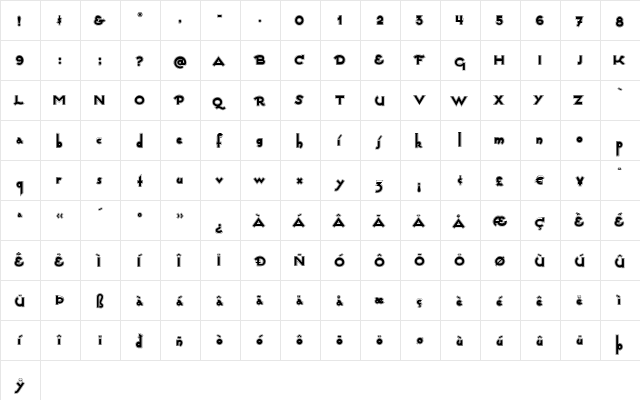
CaptainSwabby Regular Font Preview
CaptainSwabby Regular
CaptainSwabby Regular Font Details
Design Context for CaptainSwabby Typeface
CaptainSwabby is a composed and adaptable typeface that performs quietly and consistently across a wide range of design contexts.